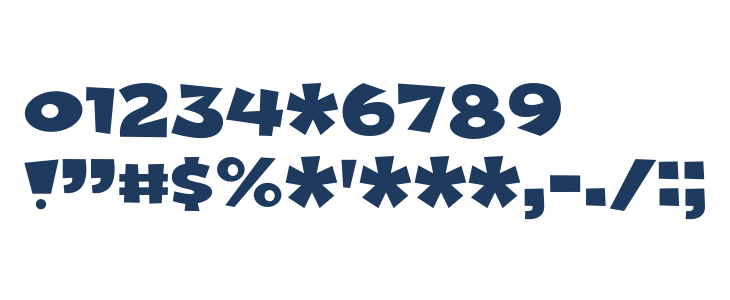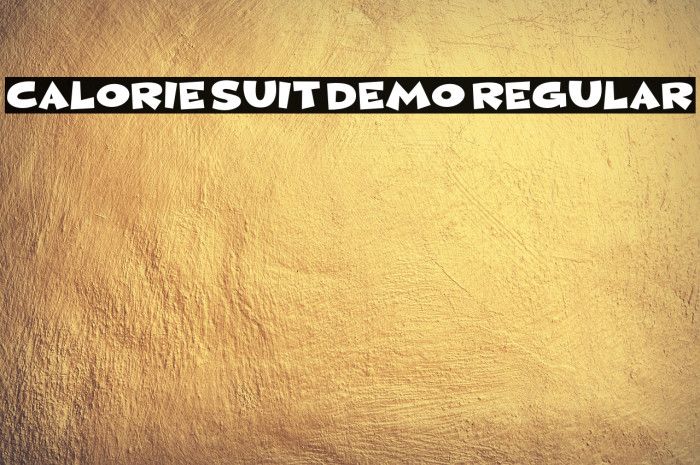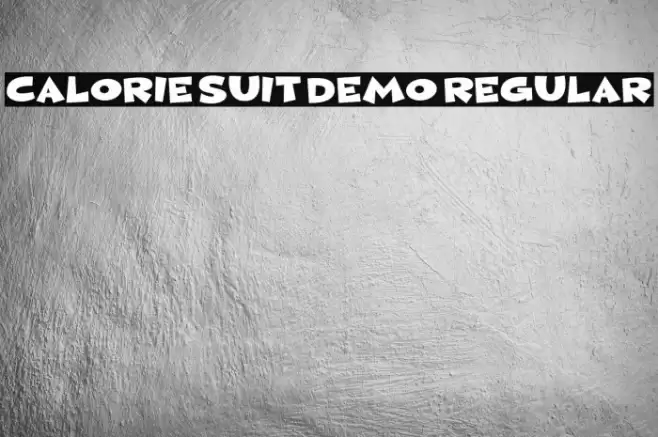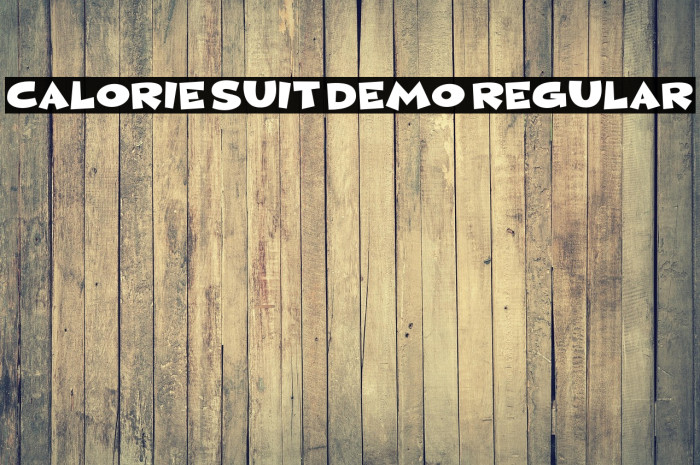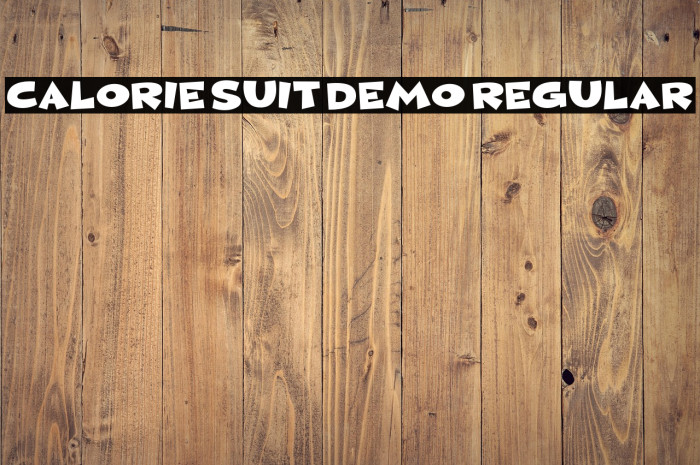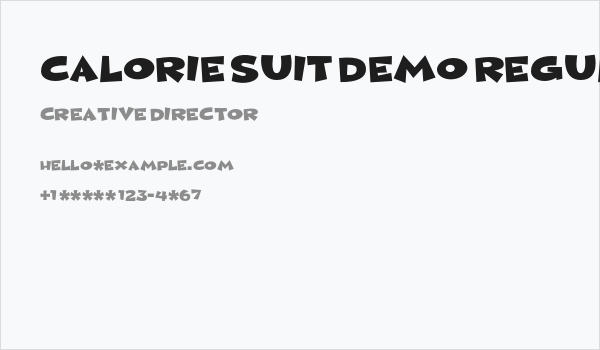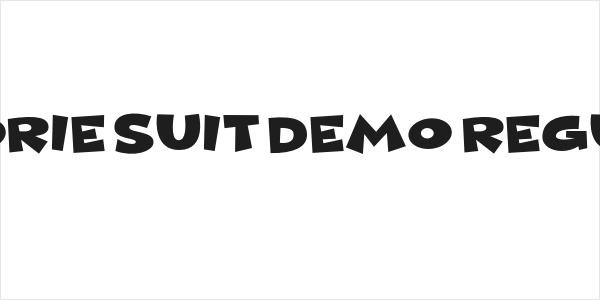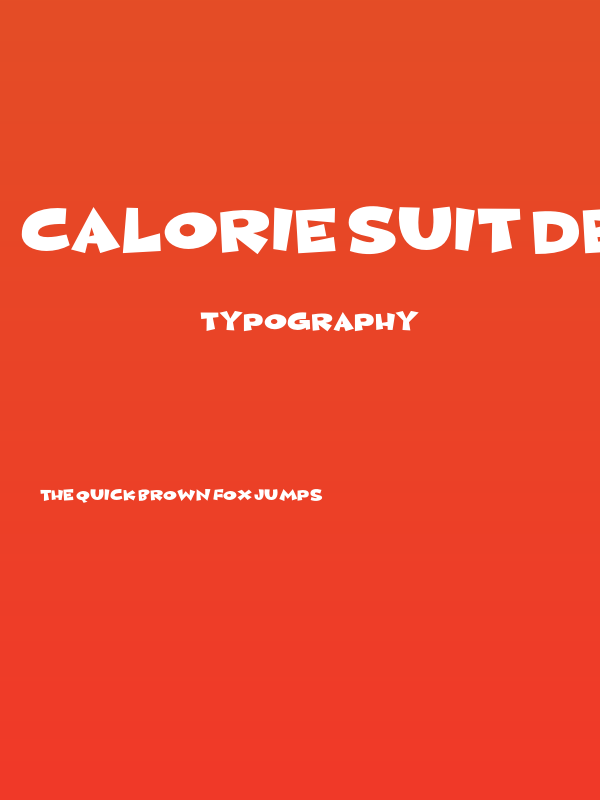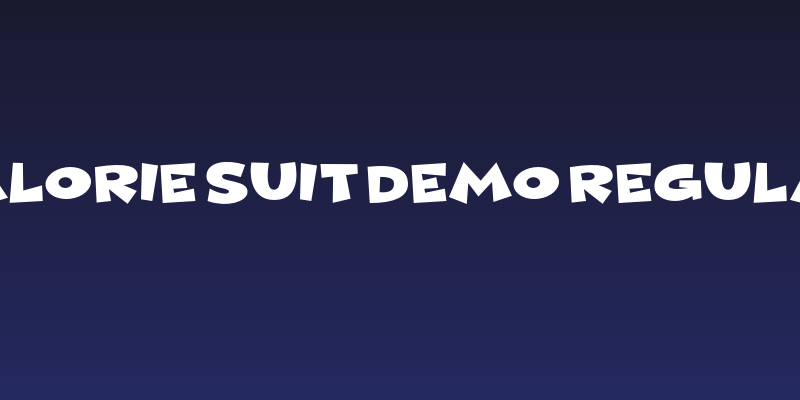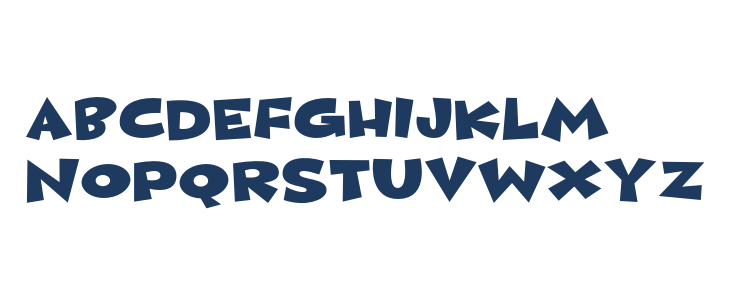
Calorie Suit DEMO Regular Font
Calorie Suit DEMO Regular Description
This font features a bold and playful design with exaggerated curves and angles, giving it a lively and energetic appearance. The characters are thick and rounded, with a slightly irregular shape that adds to its whimsical charm. The uppercase and lowercase letters maintain a consistent style, while the numbers and special characters are equally bold and dynamic. This font is perfect for projects that require a fun and eye-catching look, such as children's books, posters, or party invitations.
| Overall Style | Playful, Energetic |
| Use Case | Headlines, Posters, Invitations |
| Proposed Projects | Ideal for children's books, playful posters, party invitations, and any project needing a fun, energetic typeface. |